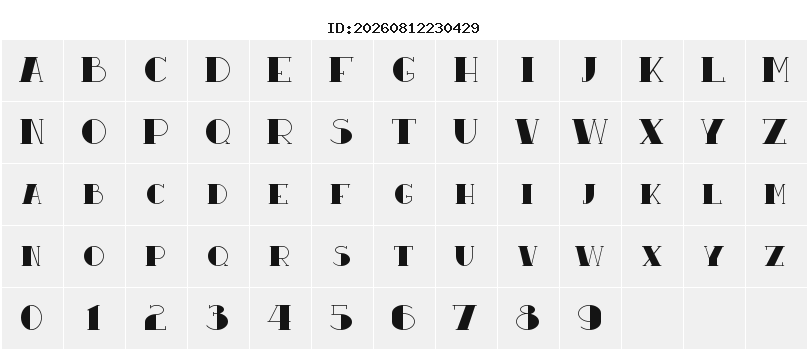
• Designer: Neale Davidson
About Resavy.otf
Resavy.otf is a modern, elegant sans-serif font designed for ultimate readability and visual harmony. Perfect for branding, headlines, web design, and print materials.